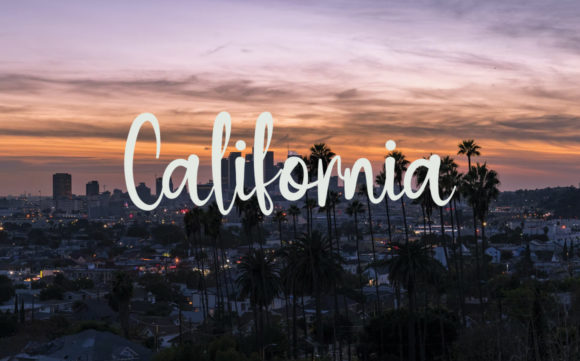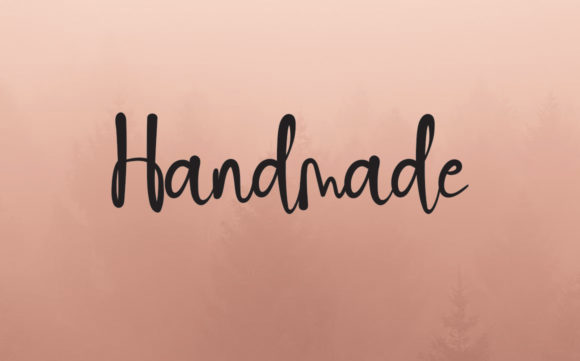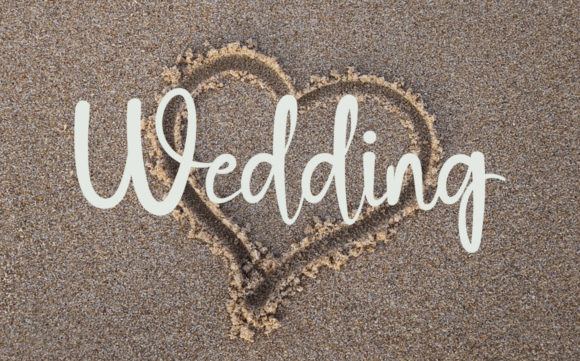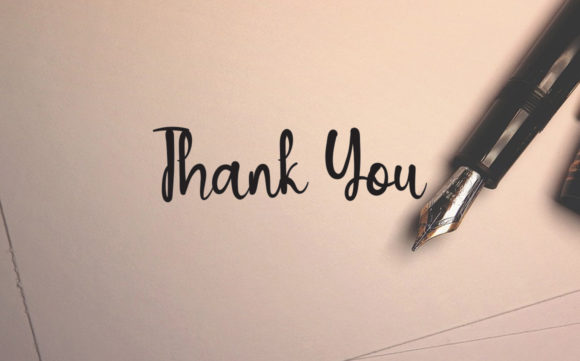
Introduction to Jolly Good Font
Jolly Good is a beautifully flowing and modern handwritten font.
Use it for wall displays, wedding invitations, social media posts, logos, advertisements, product packaging, product designs, labels, photography, watermarks, invitations, stationery, and any project that requires impressive typography .
Key Features of Jolly Good Font
Why Choose Jolly Good Font?